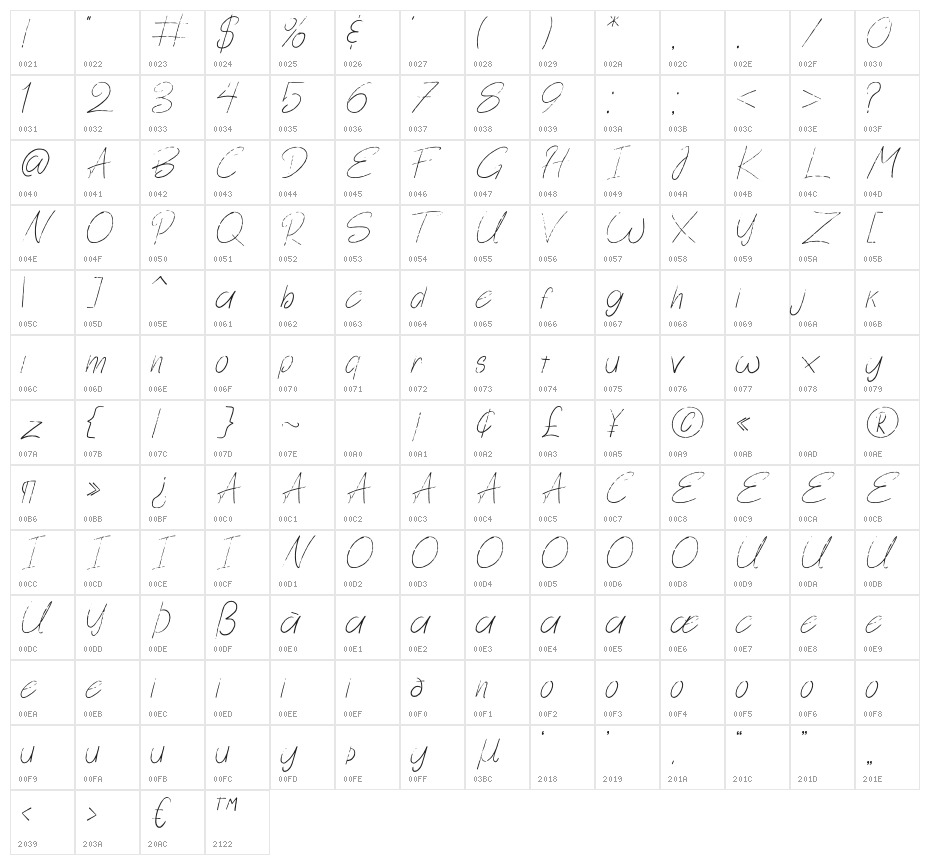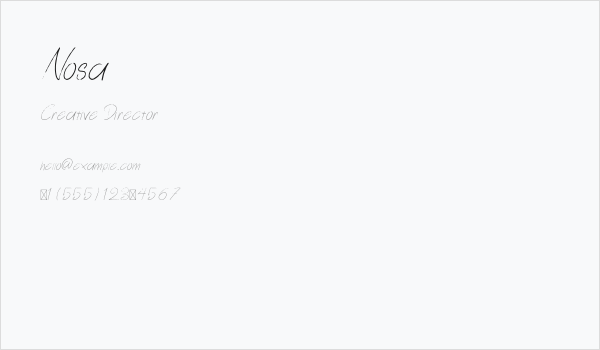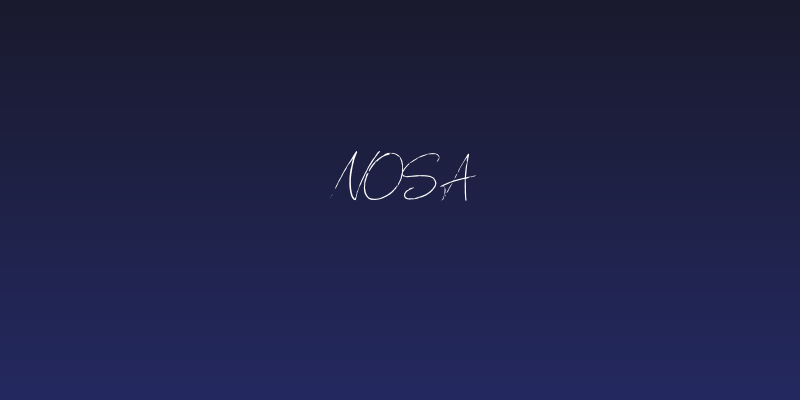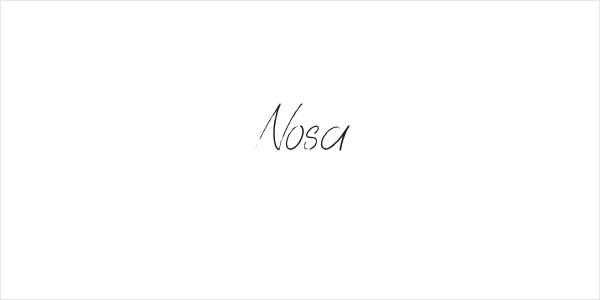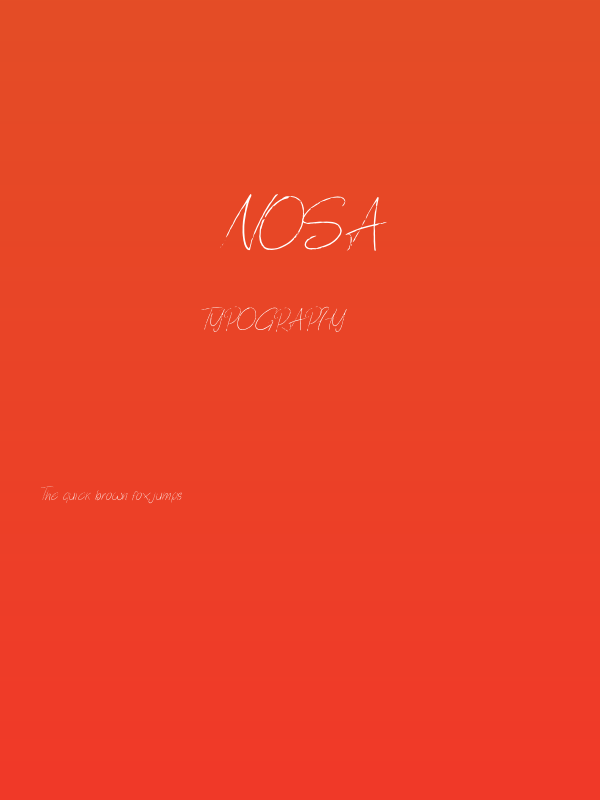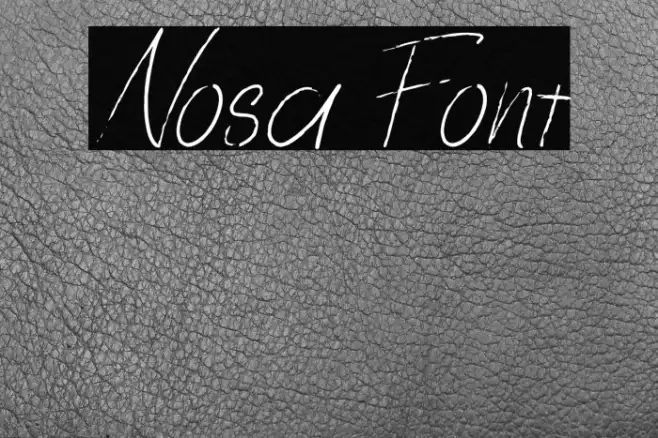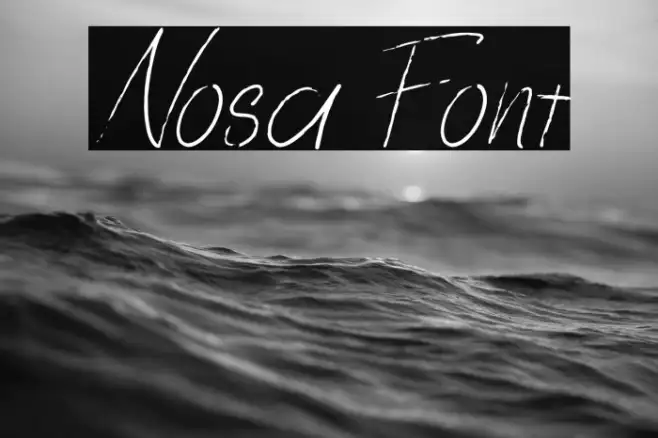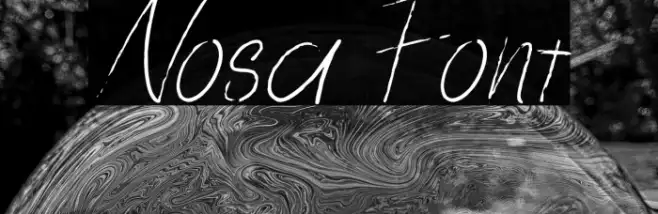
Nosa Font
Nosa Description
This font exhibits a dynamic and expressive style, characterized by its handwritten script appearance. The letters are fluid and connected, giving a sense of motion and personal touch. The strokes vary in thickness, adding a natural and organic feel to the text. The uppercase letters maintain a consistent height, while the lowercase letters show a slight slant, enhancing the casual and informal vibe. The numerals and special characters are designed to match the overall aesthetic, ensuring a cohesive look across all elements. This font is ideal for projects that require a personal or artistic touch, such as invitations, greeting cards, or creative branding.
| Use Case | Headlines, Artistic projects, Personal branding |
| Proposed Projects | Ideal for invitations, greeting cards, artistic branding, and personal projects. |